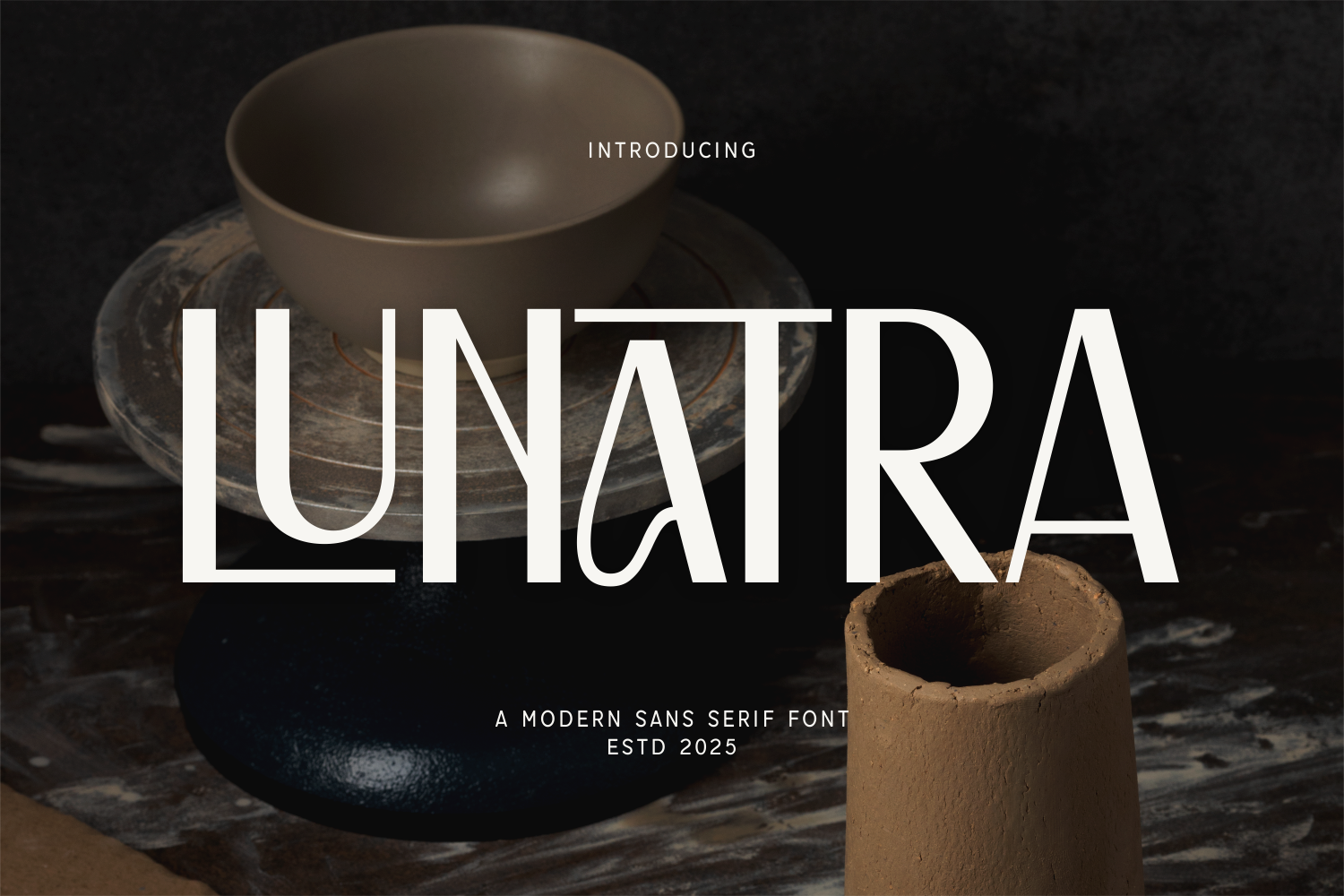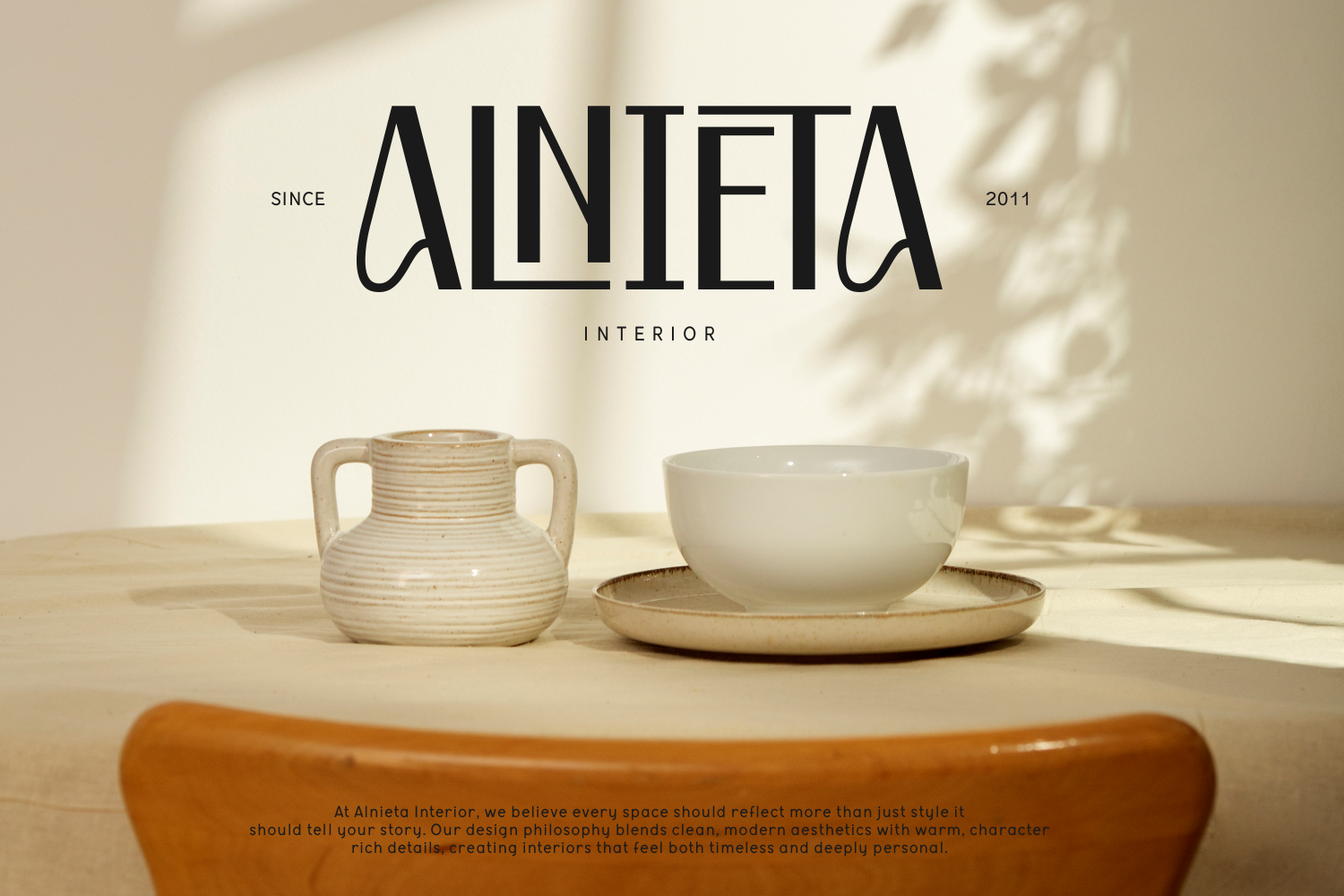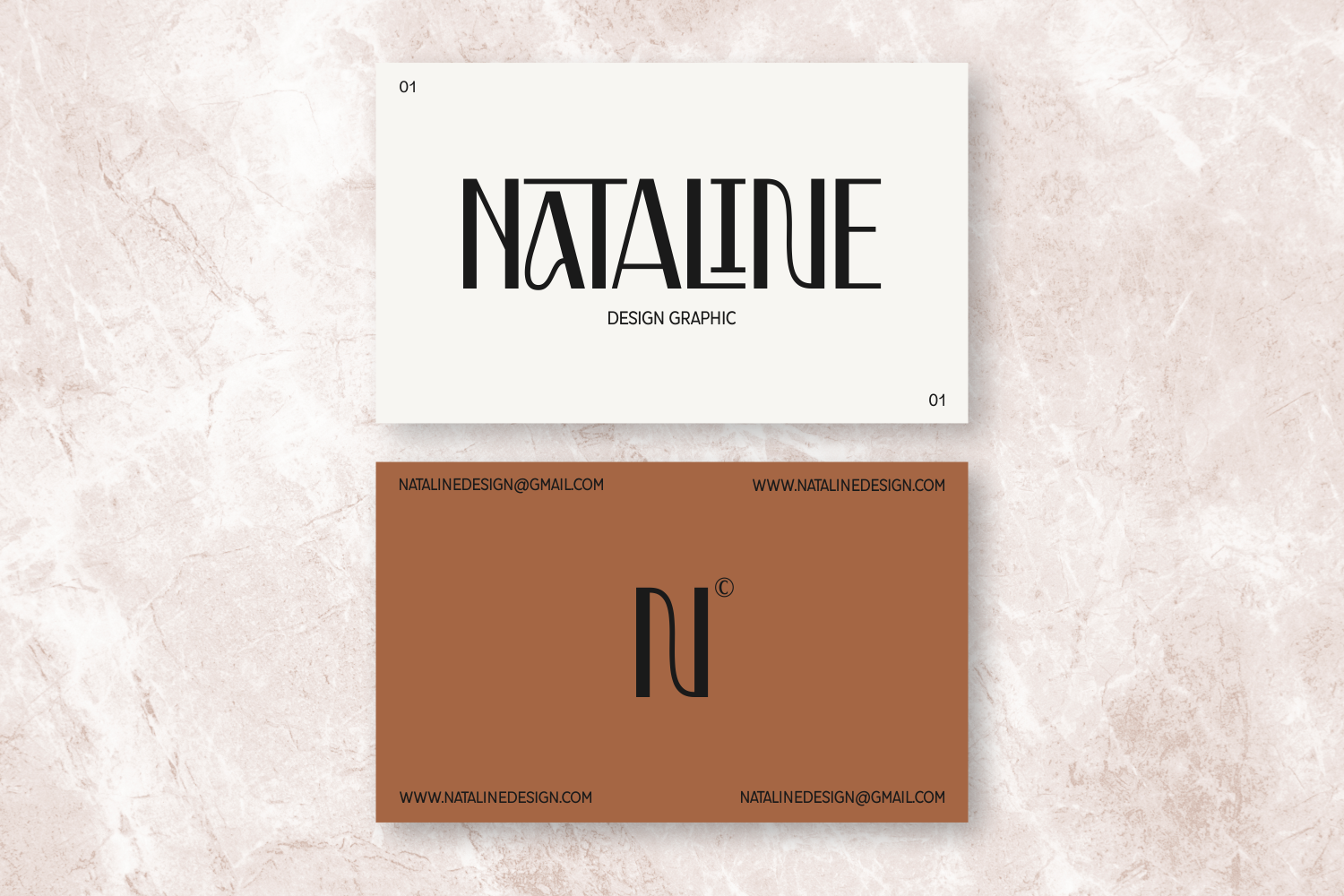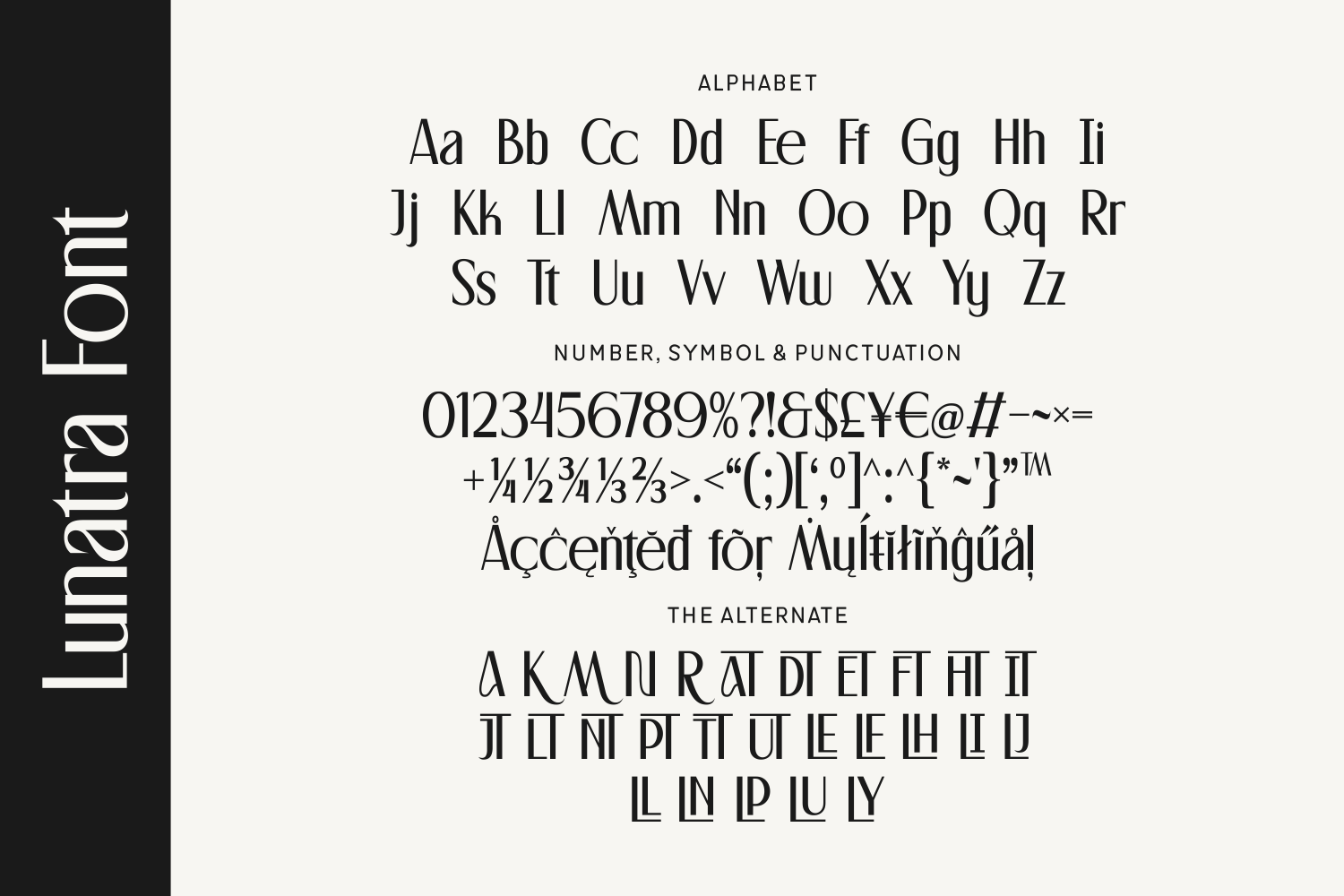
Lunatra is a captivating modern sans serif font with a striking blend of sleek geometry and creative flair.
This typeface comes with a full alphabet, extensive punctuation, and multilingual support, alongside an expressive alternate character set that introduces unique design possibilities.